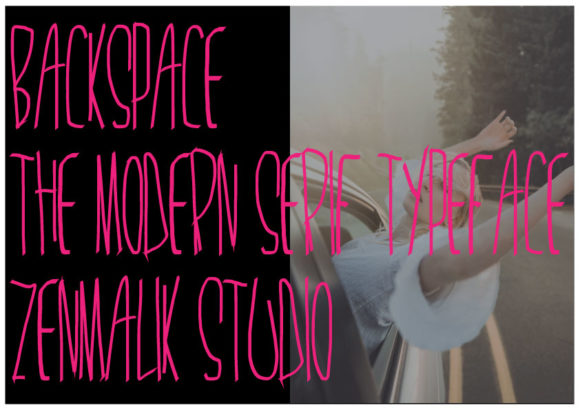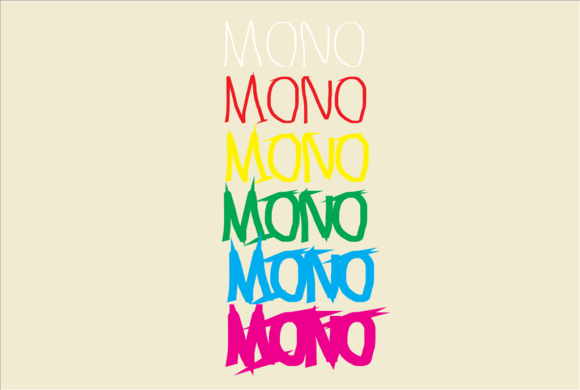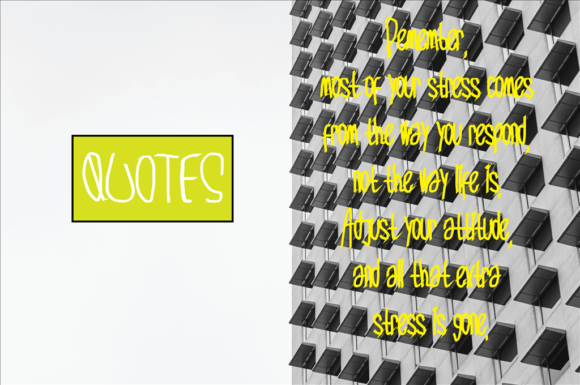
Introducing Backspace Font: The Simple yet Stunning Handwritten Font
Are you a designer or crafter looking for a font that can add a touch of elegance and sophistication to your designs? Look no further than Backspace Font, a simple and thin lettered handwritten font that’s perfect for creating eye-catching logos, branding, and quotes.
What makes Backspace Font special?
Backspace Font is a unique and beautiful font that’s designed to make your designs feel down to earth. Every letter has a distinctive touch that sets it apart from other fonts. The font’s simplicity and thin lettering make it perfect for creating clean and minimalist designs that are both modern and stylish.
Backspace Font is an excellent choice for creating logos and branding materials. Its simple yet elegant design makes it perfect for businesses that want to convey a sense of sophistication and professionalism. The font’s unique touch adds a personal touch to your brand, making it more relatable and memorable.
Great for Quotes and Typography
Backspace Font is also great for creating quotes and typography designs. The font’s thin lettering and simple design make it perfect for creating clean and easy-to-read quotes that are both inspiring and thought-provoking. Whether you’re creating a motivational poster or a social media graphic, Backspace Font is the perfect choice.
Why Choose Backspace Font?
So why choose Backspace Font over other fonts? Here are just a few reasons:
- Unique and Beautiful Design: Every letter in Backspace Font has a unique and beautiful touch that sets it apart from other fonts.
- Simple and Thin Lettering: The font’s simplicity and thin lettering make it perfect for creating clean and minimalist designs.
- Perfect for Logos and Branding: Backspace Font is an excellent choice for creating logos and branding materials that convey a sense of sophistication and professionalism.
- Great for Quotes and Typography: The font’s thin lettering and simple design make it perfect for creating clean and easy-to-read quotes and typography designs.
- Experiment with Different Sizes: Backspace Font looks great in a variety of sizes, from small and delicate to large and bold.
- Pair it with Other Fonts: Backspace Font pairs well with other fonts, such as sans-serif fonts or script fonts.
- Use it for Headlines and Titles: Backspace Font is perfect for creating headlines and titles that are both eye-catching and easy to read.
Backspace Font is a simple yet stunning handwritten font that’s perfect for designers and crafters looking to add a touch of elegance and sophistication to their designs. Its unique and beautiful design, simplicity, and thin lettering make it perfect for creating eye-catching logos, branding, and quotes. Whether you’re a seasoned designer or just starting out, Backspace Font is a great choice for any design project.